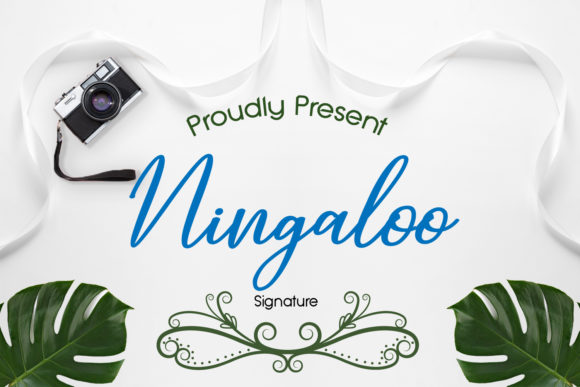
Prepare to dive into the depths of Ningaloo's ethereal beauty! This breathtaking script font is an artistic diver's dream, captivating you with its mesmerizing flow and graceful finesse. Let your imagination set sail with Ningaloo, where every stroke dances across the page like a graceful ballet performance.
Indulge in the captivating current of Ningaloo's script, a font that effortlessly complements your creative endeavors. Picture your wedding invitations adorned with its elegant swirls, transforming each letter into a testament to your love's timeless journey. Let Ningaloo's artistry grace your heartfelt thank-you cards, imbuing each word with a touch of gratitude that echoes through time.
Unleash the power of Ningaloo's eloquence in your design projects. Its versatile strokes seamlessly intertwine with logos, adding a touch of sophistication to your brand's identity. Elevate your business cards with Ningaloo's confident presence, leaving a lasting impression that reflects your impeccable taste.
Ningaloo's charm extends beyond the digital realm. Its enchanting essence translates effortlessly onto paper, inviting you to craft heartfelt quotes that resonate with raw emotion. Let Ningaloo be your creative guide as you explore the art of hand-lettering, transforming ordinary greetings into extraordinary expressions.
Embark on a creative odyssey with Ningaloo, where imagination takes flight and your artistic vision knows no bounds. Dive into the depths of this script's beauty and emerge with creations that captivate and inspire. Let Ningaloo's allure guide your every stroke, creating a symphony of style that echoes throughout your designs.